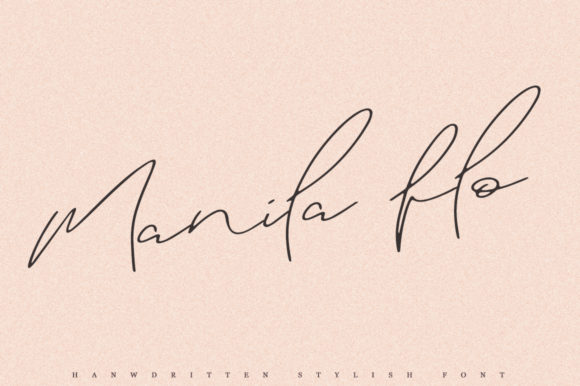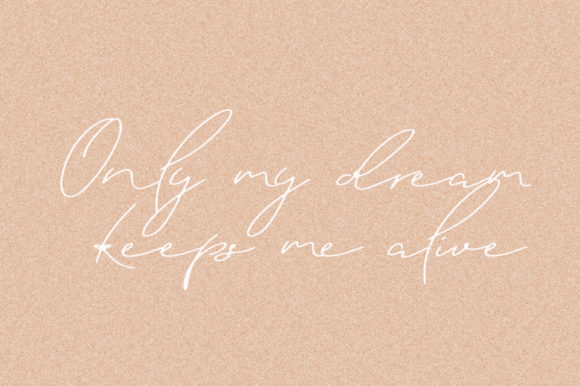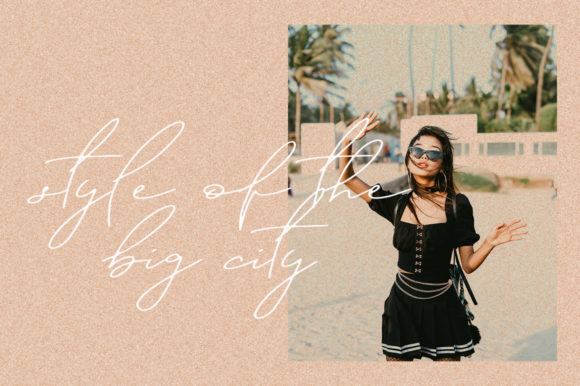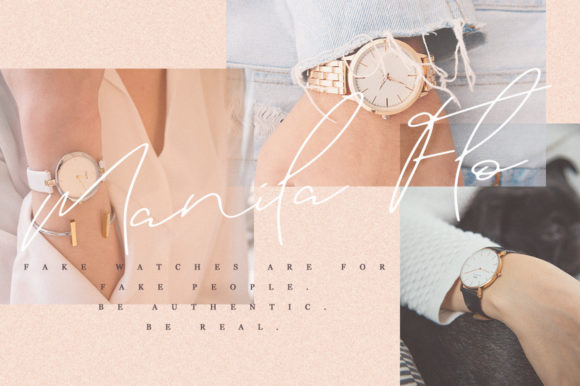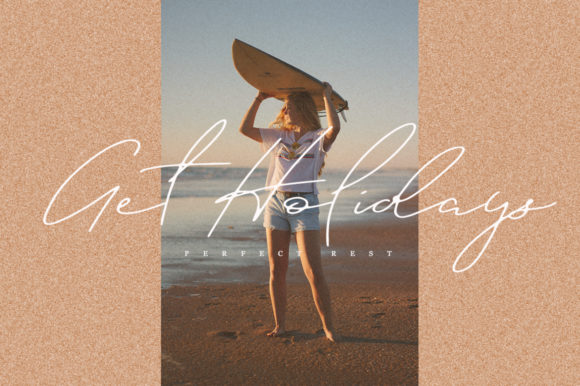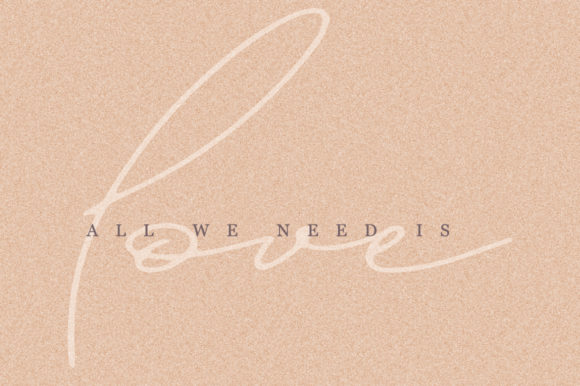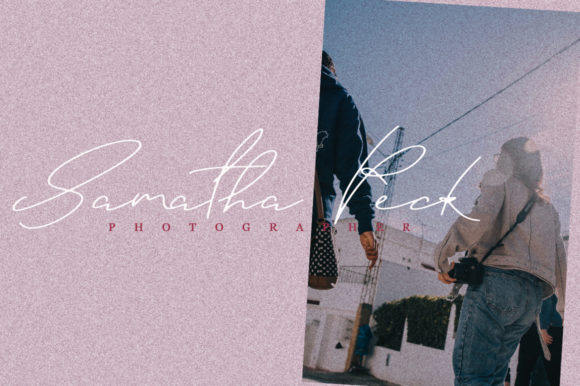
Manila Flo Font
Manila Flo is a strikingly light and sophisticated handwritten font with a lot of authenticity! It will turn any design idea into a stand out.